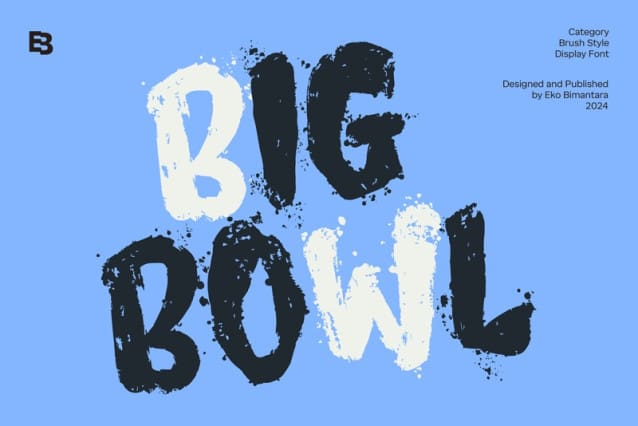
Big Bowl Font
Big Bowl Font is a casual display font, created by using a brush pen. Clean and a little bit quirky, this font is the perfect fit for all of your logos, branding, social media, and crafty DIY projects.